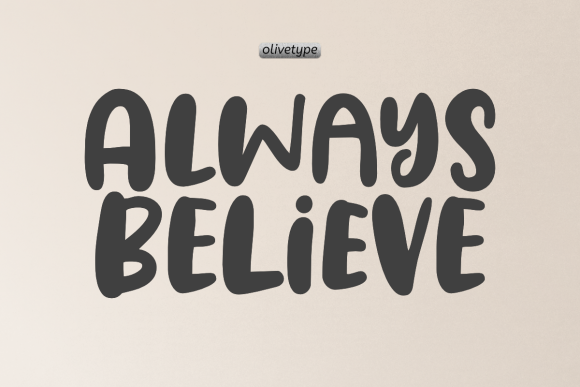
The Ultimate Guide to Always Believe Font: Unlocking Endless Design Possibilities
I’ll never forget the time I was working on a project for a trendy coffee shop, and I just couldn’t find the right font to capture their laid-back vibe. The client wanted something that would make their poster flyers stand out, but everything I tried seemed either too bland or too over-the-top. That’s when I stumbled upon the Always Believe font, and let me tell you, it was love at first sight! 😍
This cool and trendy styled display font has been a game-changer for my designs, and I’m excited to share its awesomeness with you. In this article, we’ll dive into the world of Always Believe, exploring its features, how to use it on different platforms, and even some similar fonts you might love.
An Honest Review of Always Believe Font
- 💥 **Stunning visuals**: Always Believe is a real showstopper, with bold lines and a unique style that grabs attention.
- ✅ **Versatility**: This font is perfect for various design projects, from poster flyers to print materials.
- 🎨 **Endless possibilities**: With its range of OpenType features and glyphs, you can experiment with different styles and effects.
- ⚠️ **Limited use in body text**: Due to its bold and stylized nature, Always Believe might not be the best choice for lengthy body text.
- 🤔 **Some characters may require adjustment**: You might need to tweak certain characters to get the perfect spacing and alignment.
The Backstory Behind Always Believe
While the origins of Always Believe are shrouded in mystery, it’s clear that the designer was inspired by the world of fashion and art. With its bold lines and stylized letters, Always Believe is the perfect fusion of style and creativity.
Q: Is Always Believe suitable for body text?
A: While Always Believe is a stunning font, it’s best used for headlines and titles. For body text, you might want to choose a font with better readability.